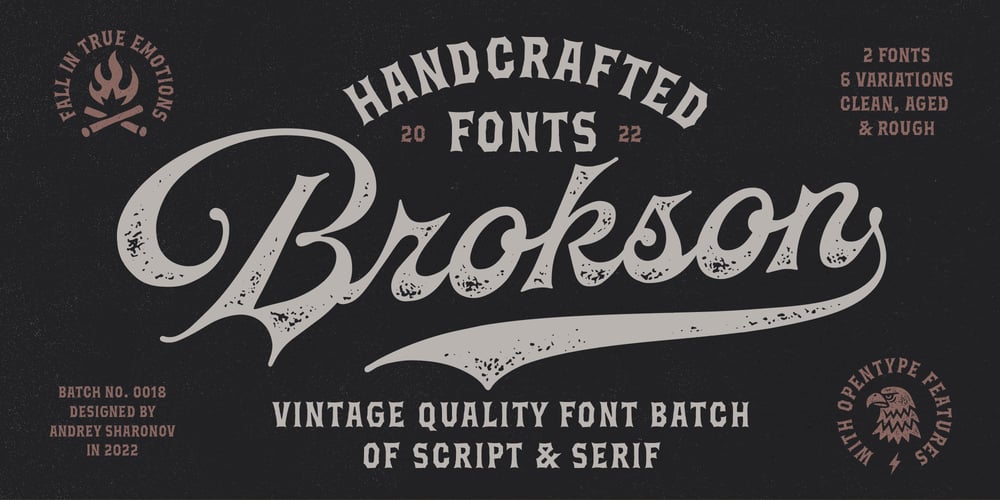
Brokson Font Family was designed by Andrey Sharonov and published by Andrey Sharonov. Brokson contains 6 styles and family package options. This font pair was crafted by hand under inspiration of old-fashioned typography on different vintage labels, packages, sighs and others. It’s will be a godsend for those who want to add vintage mood to design project. Collection includes Script, Serif and it’s variations like Regular, Rough and Aged. This pair perfectly cooperating with each other. Brokson can be used in different purposes: lettering and logotype, labels, t-shirts, product packaging, advertising and many others.In addition to the basic set, Brokson Script has beautiful alternatives of Uppercase characters, variations of the end for Lowercase and some ligatures. Also, there are two types of end-swashes and eight lengths of each style. Brokson Serif was designed as a secondary and additional font after Script, but in the process of their use I realized it also look great as a priority. Quick combinations for Opentype features:Uppercase Alternates – just add for example «2, 3, or 4» after Uppercase;End-letter – just add «2» at the end of the word;End-swashes (tails) – just add _1, _2, _3… or /1, /2, /3…up to 8, where number is length of tail.This combinations works only with activated Standard Ligatures option in Opentype panel (Adobe Illustrator / Photoshop).Multilingual SupportDanish, Dutch, English, Estonian, Faroese, Finnish, French, German, Hungarian, Icelandic, Italian, Norwegian, Polish, Portuguese, Slovene, Spanish, Swedish, Turkish.